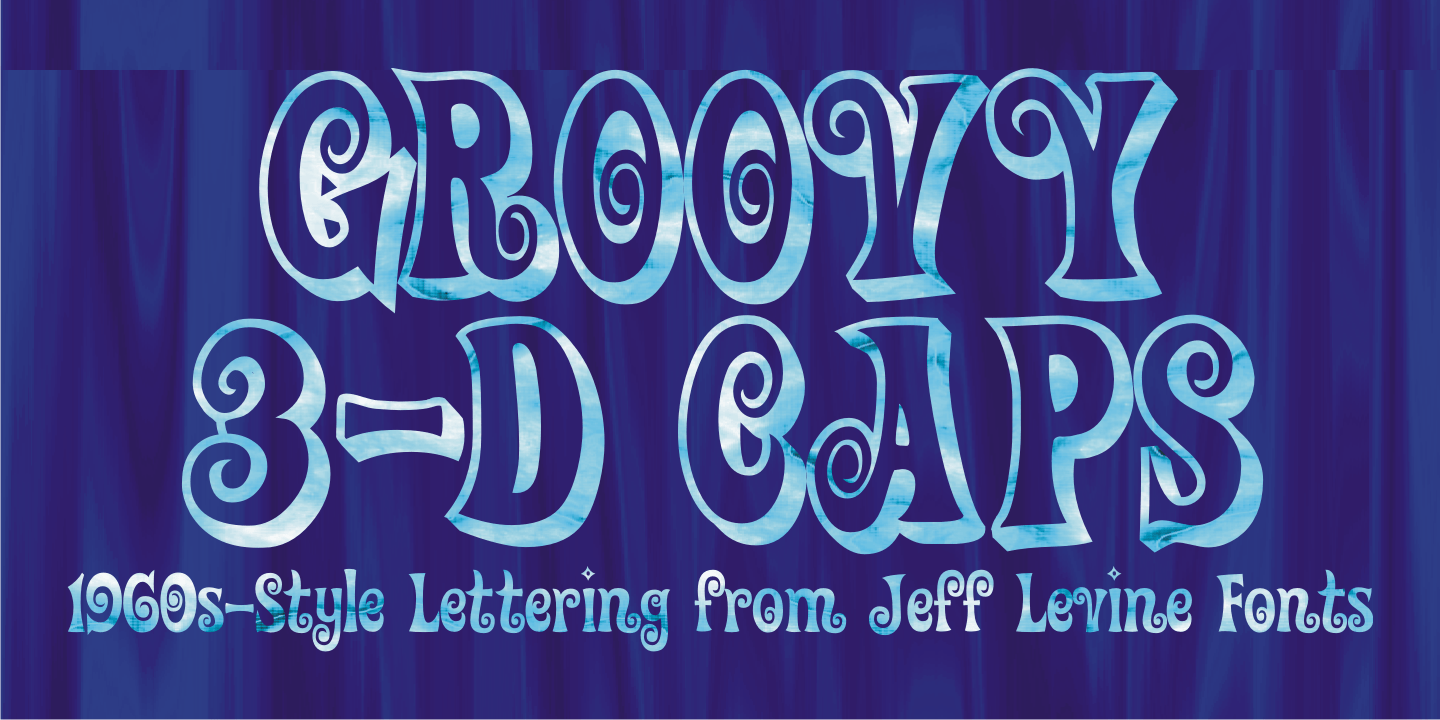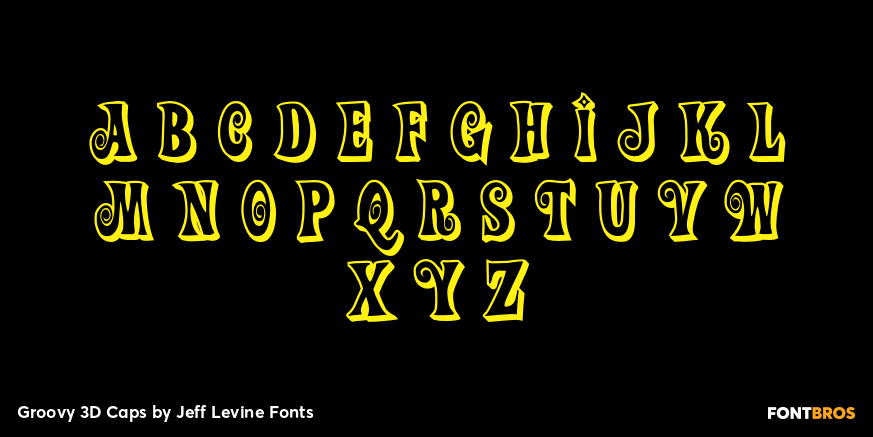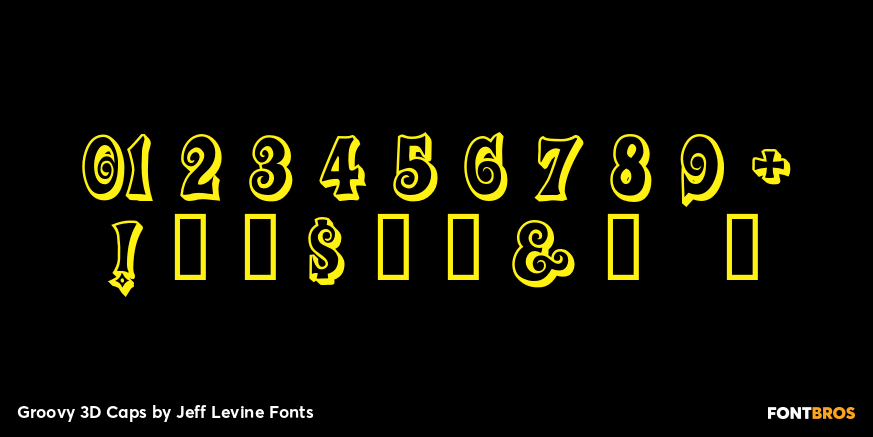
Groovy 3D Caps
It all started with a simple idea back in 1998 – do a digital version of a "lost" 70s typeface, and make up the missing letters that were not present in the only available example Jeff Levine had to work with.
Jeff wasn't yet doing his own digital font creation, so he hooked up with Brad Nelson who owns a small foundry called Brain Eaters Fonts. Together, they collaborated on "Action Is" – a freeware font named after the source of the type example – a title page for a commemorative photo album of images from the 60s TV music show "Where the Action Is" – formerly hosted by Jeff's employer at the time, singer-writer-producer Steve Alaimo.
The free font took off like a rocket, being released just at the peak of the 60s/70s retro craze in the late1990s, and it was EVERYWHERE – from TV shows to packaging to web design – even spotted on signage used on the side of a major amusement resort's retro-themed hotel… but Jeff kept getting requests for a version with a lower case.
Although they shared the copyright in the freeware version, Brad Nelson gave Jeff his blessing to re-work and take Action Is into the realm of commercial type.
Newly improved and re-released as Groovy Happening JNL, it became one of Jeff's better selling type designs. A simplified, yet similar font was issued called Groovy Summer JNL.
Now, after about a decade, Jeff had decided to clean up the 3-D (drop shadow) version that was originally freeware with many minute design flaws and re-release it commercially.
Groovy 3D Caps JNL is an all-caps, limited character set font which ties in well with the previous releases, yet retains it's 1960s-1970s era charm.